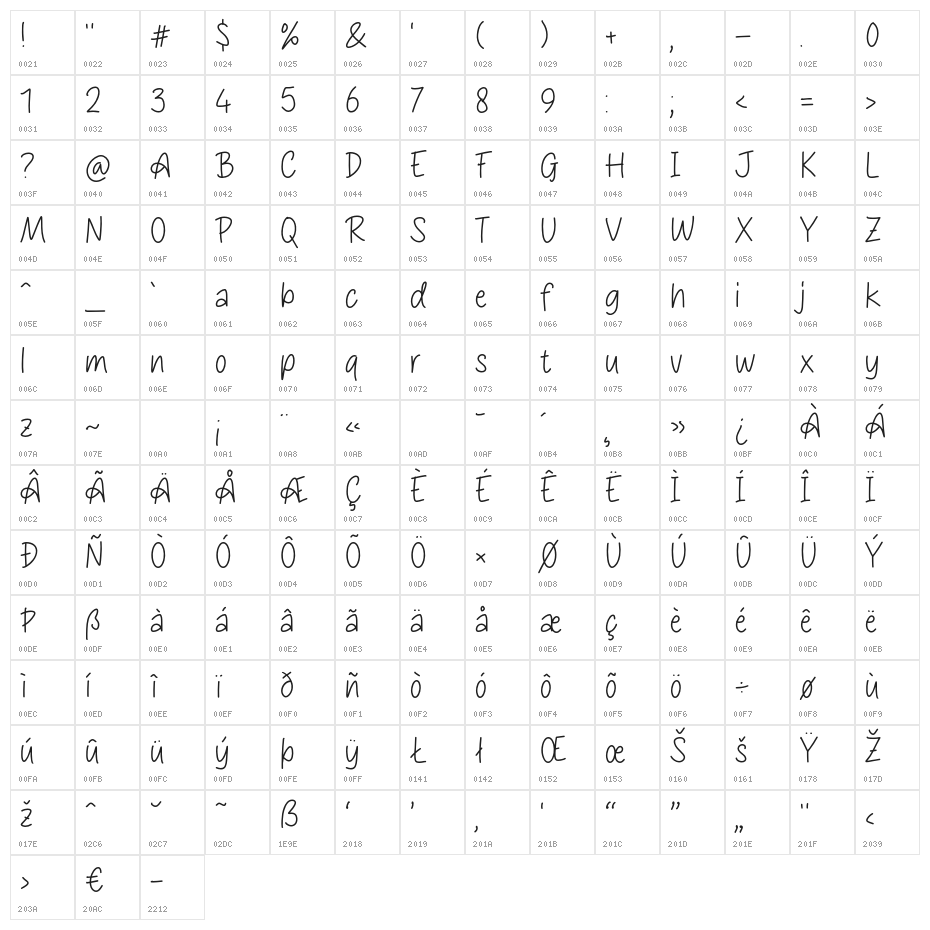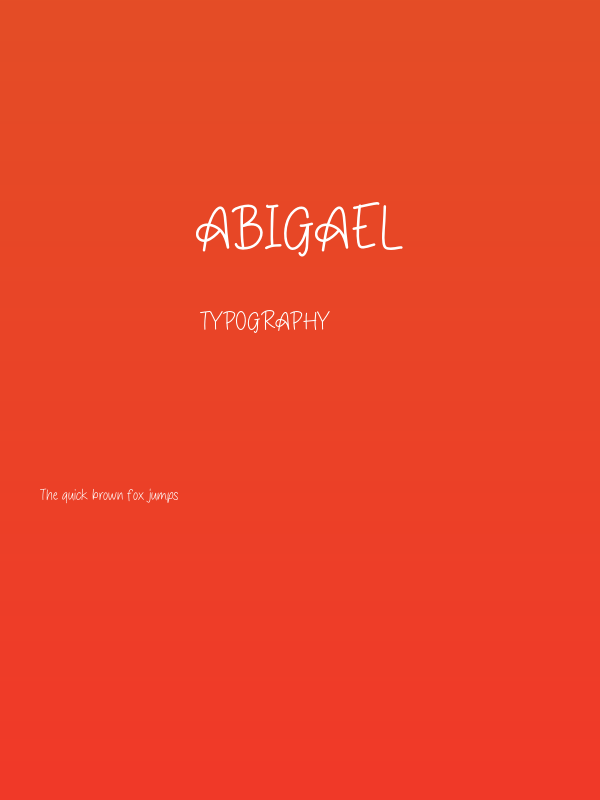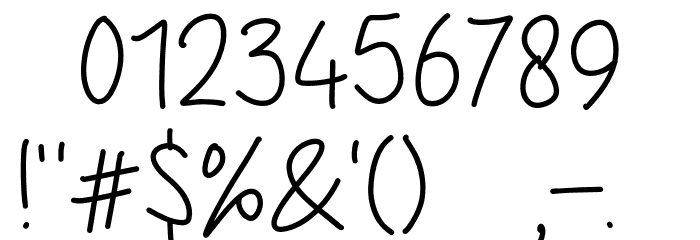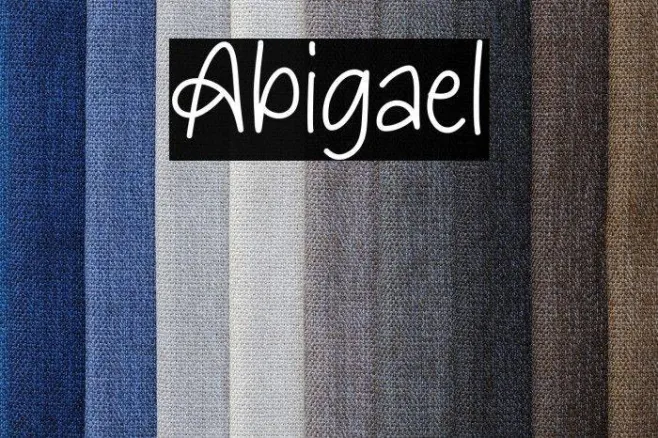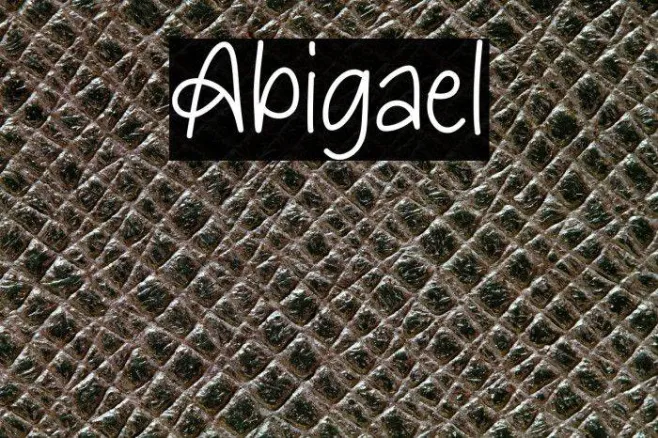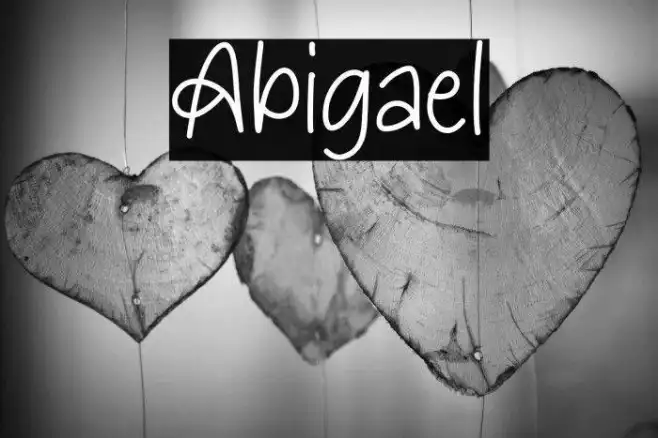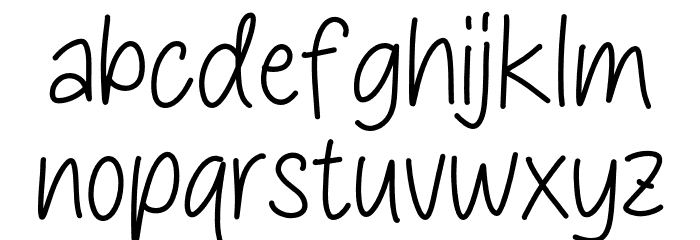
Abigael Font
Abigael Description
This font exhibits a playful and casual handwritten style, characterized by its smooth and flowing letterforms. The uppercase and lowercase letters maintain a consistent rhythm, with slightly irregular strokes that add a personal touch. The numerals are clear and easy to read, complementing the overall aesthetic. Special characters are well-integrated, maintaining the font's cohesive appearance. The informal nature of this font makes it suitable for projects that require a friendly and approachable feel.
| Use Case | Logos, Invitations, Social Media Graphics |
| Proposed Projects | Ideal for greeting cards, invitations, personal branding, and informal social media graphics. |